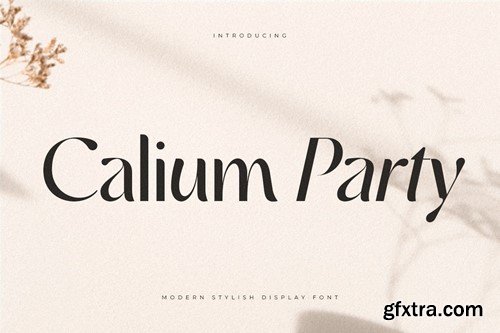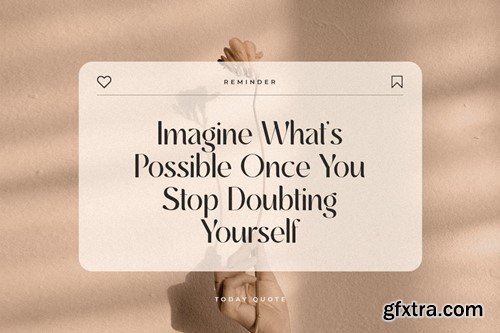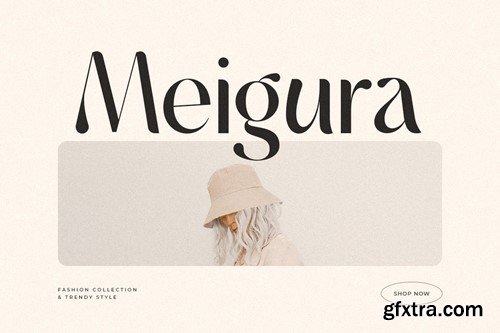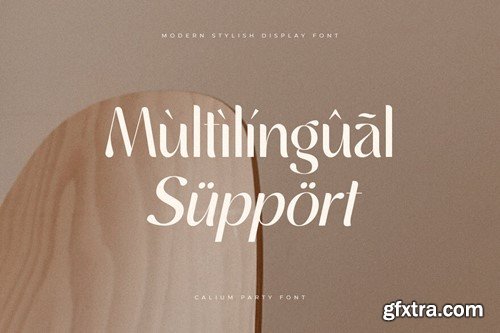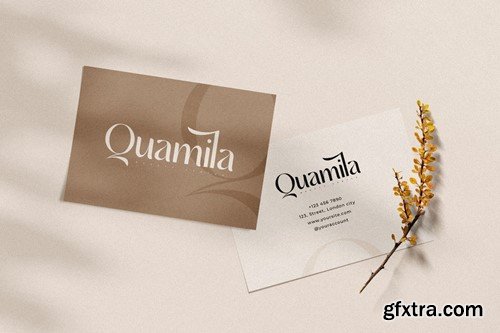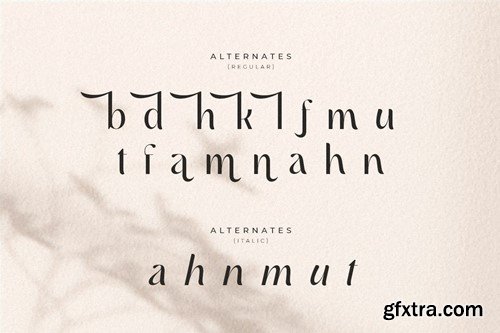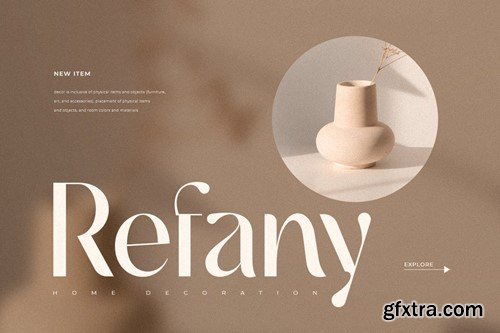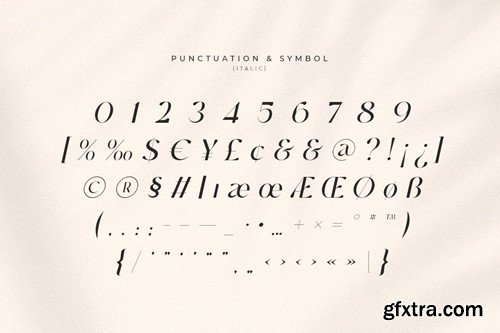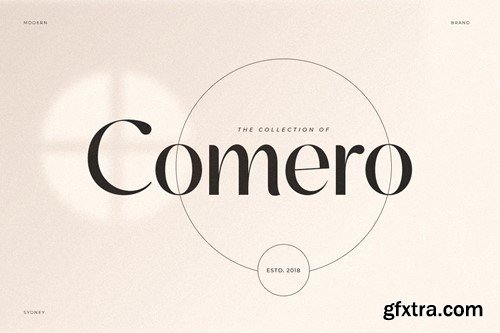
卡尔文派对 - 王室奢华 cinematic 字体 2QPVKKM
Calium Party - Royal Luxury Cinematic Font 2QPVKKM
Calium Party - Royal Luxury Cinematic Font
An exclusive font tailored for luxury and cinematic branding, offering an elegant aesthetic to enhance your brand's allure. Crafted with unique alternates, this font is designed to elevate the value of your brand. Whether you're a designer or a product owner seeking stylish and modern solutions, this font provides the perfect answer. Boasting an array of stylish and bohemian characters, it opens the door to endless creative possibilities, allowing you to create a myriad of variations for your unique and perfect designs.
• Unique Characters
• Character set A-Z
• Numerals & Punctuation
• Accented Characters (West Europe)